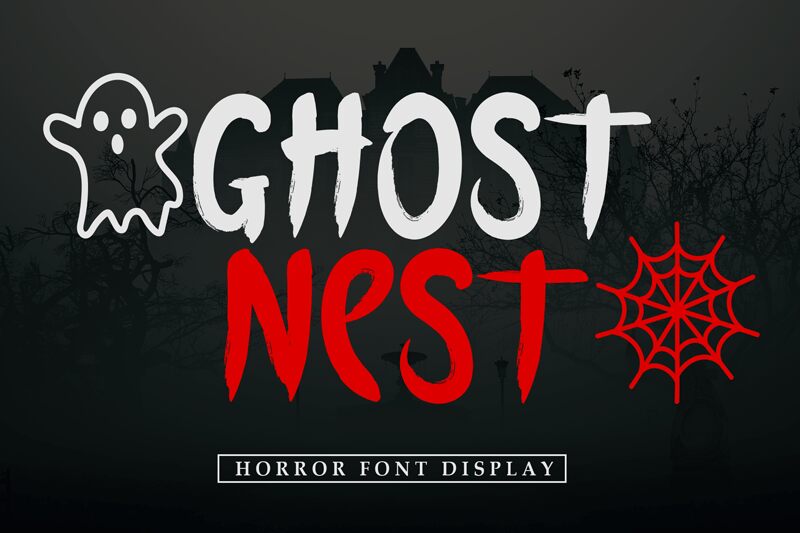
Ghost Nest
Ghost Nest font is the creation of Andi Moz. This free brush font takes on an artistic route with a grungy and edgy style that both captivates and engages viewers. This textured display provides depth to every letter, and as each character is intended to shine bright, we don’t want you to shy away from a headline or logotype design that uses it.
The list of possible projects for Ghost Nest includes magazine header designs, store names designs, book titles both for covers or inside the books and more. It can be used directly as an imprint on T-shirt designs or apparel pattern/print designs in general. Hotel names can get an elegant design upgrade when applying this exotic free font where its thin lines actually have a powerful effect suitable for such branding ideas – especially hotels near tropical locations like islands.